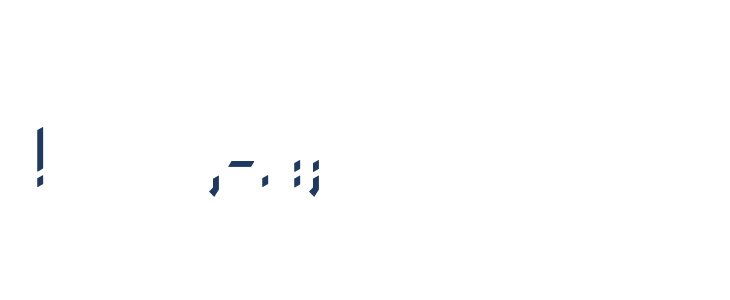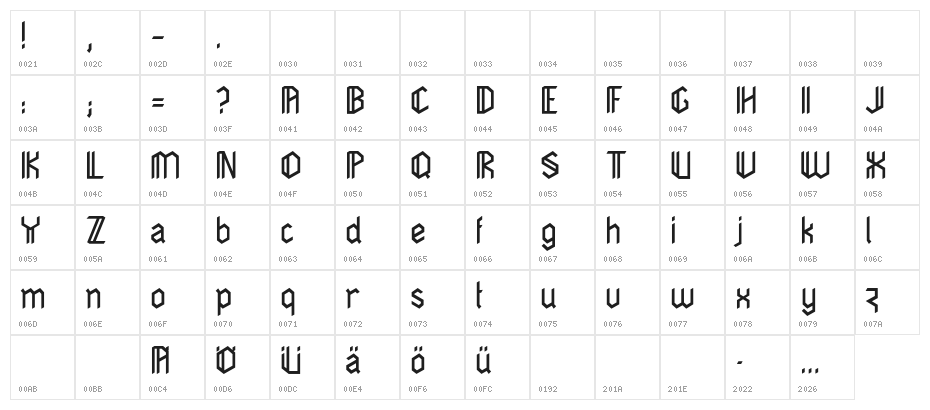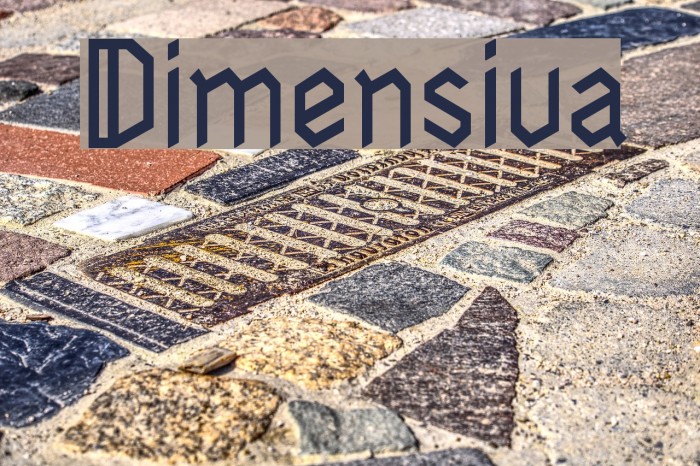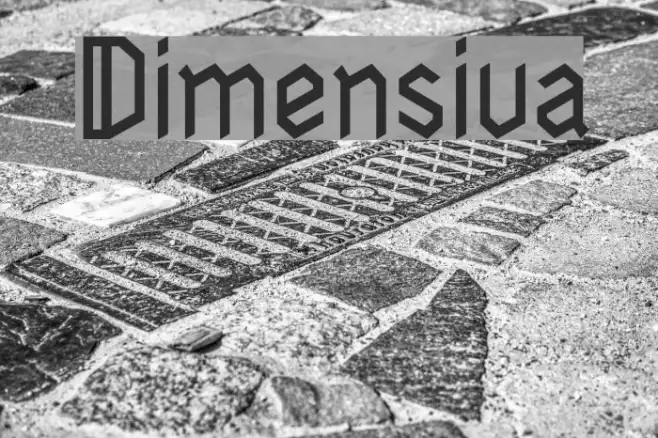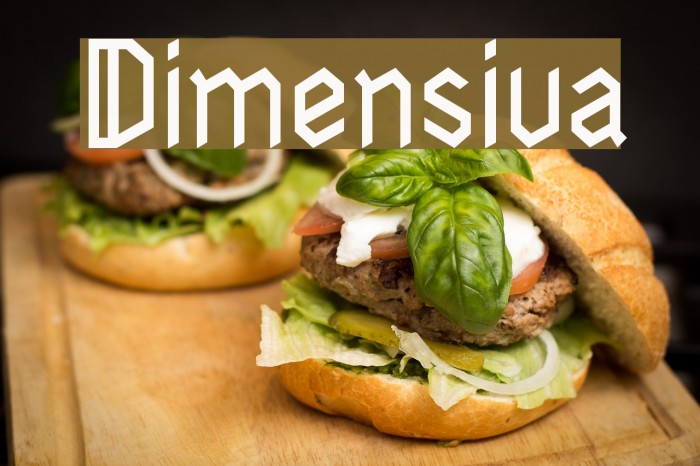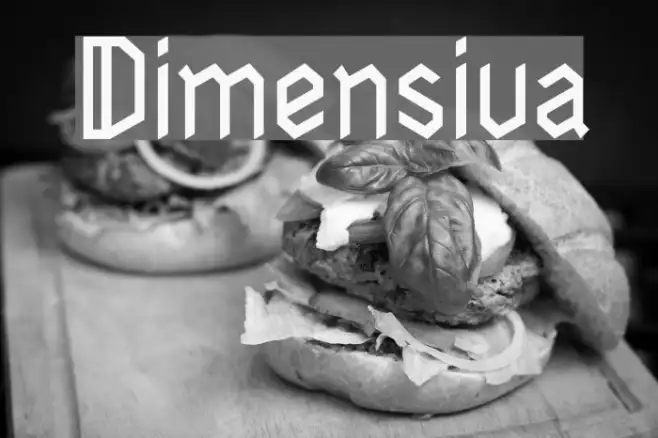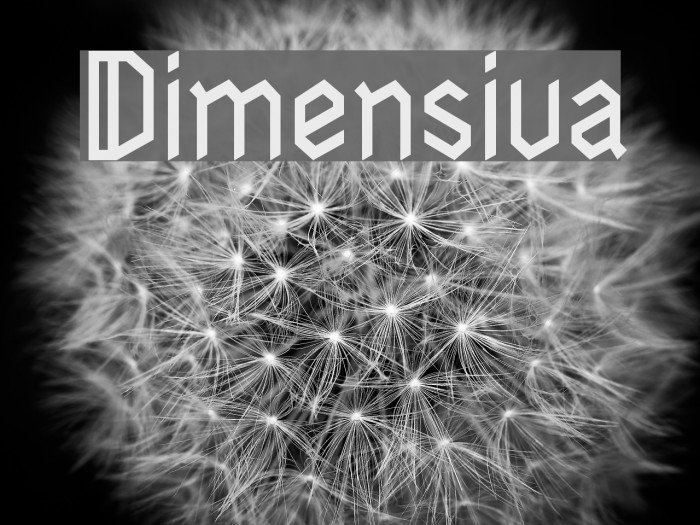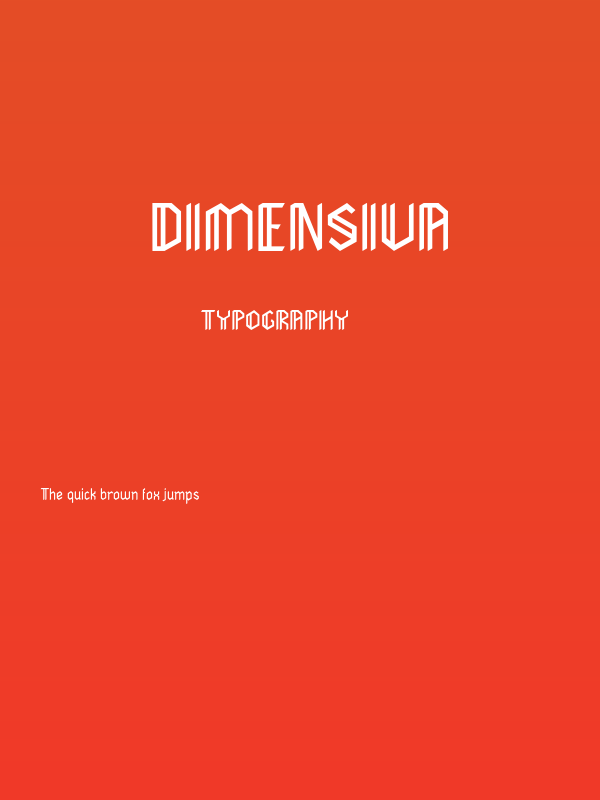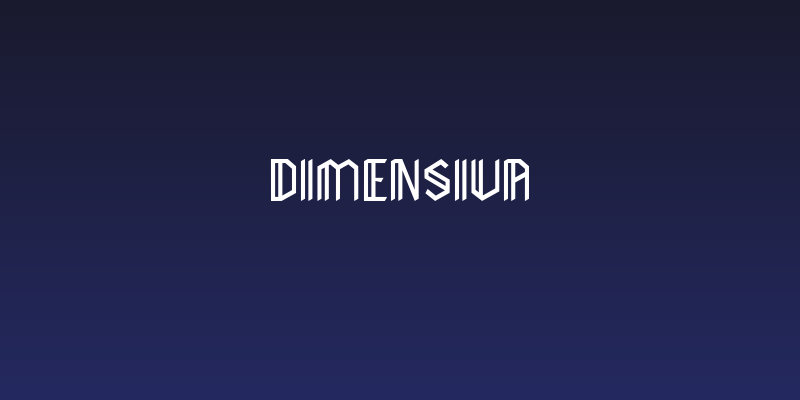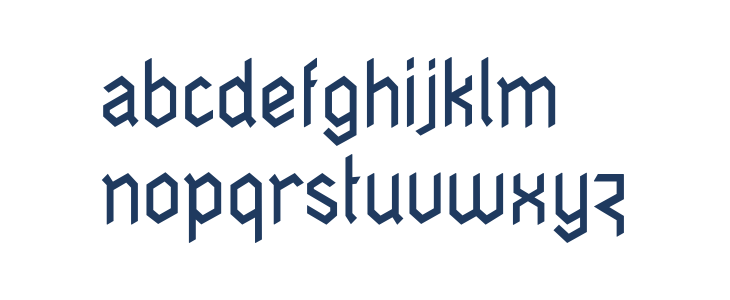
Dimensiva Font
Dimensiva Description
This font features a unique geometric design with angular, sharp edges that give it a futuristic and modern appearance. The uppercase letters are bold and striking, with a consistent height and width that create a uniform look. The lowercase letters maintain the geometric style but are slightly more rounded, providing a subtle contrast to the uppercase. The numerals and special characters follow the same design principles, ensuring a cohesive appearance across all characters. The font's distinct style makes it ideal for projects that require a bold and modern aesthetic.
| Proposed Projects | Ideal for branding, posters, video game graphics, and sci-fi themed projects. |